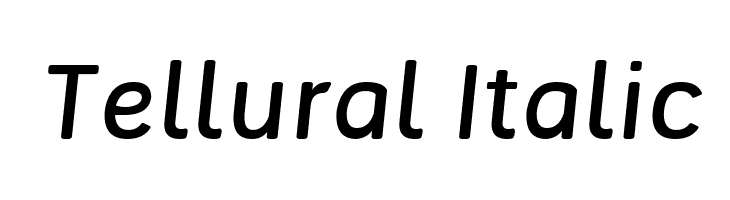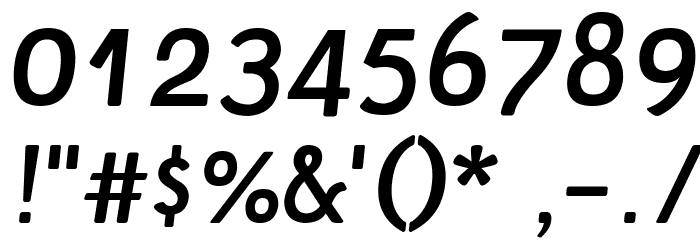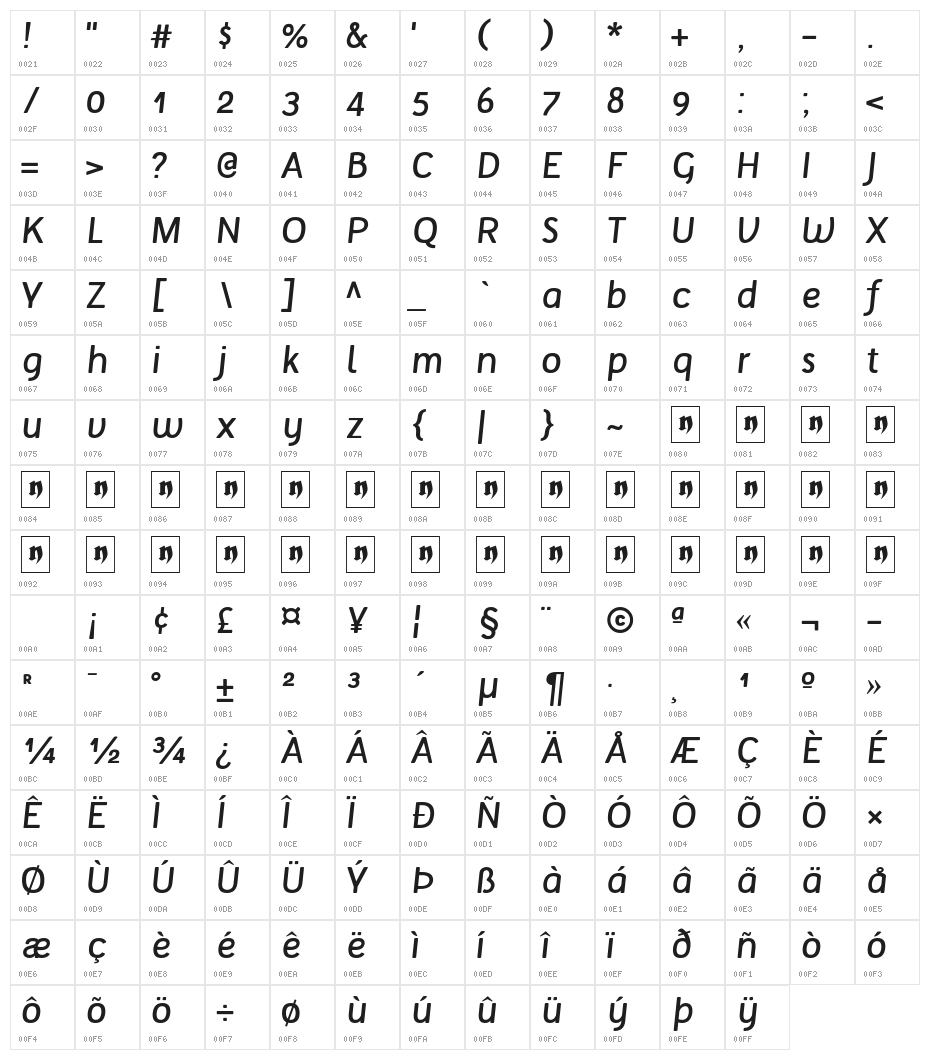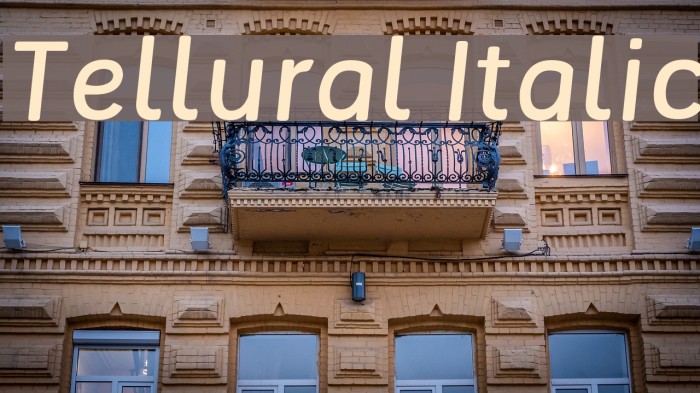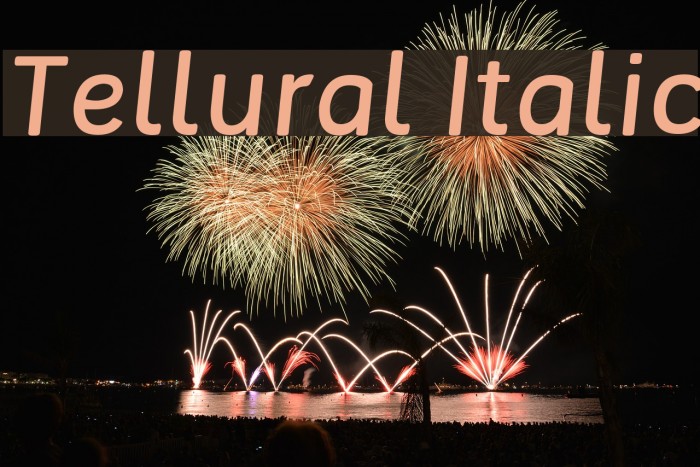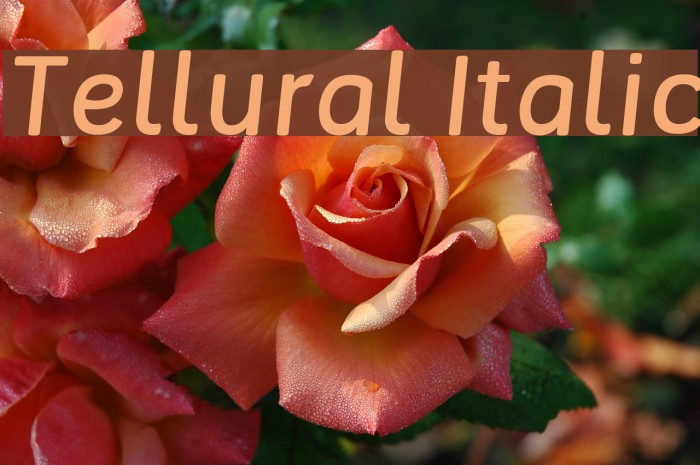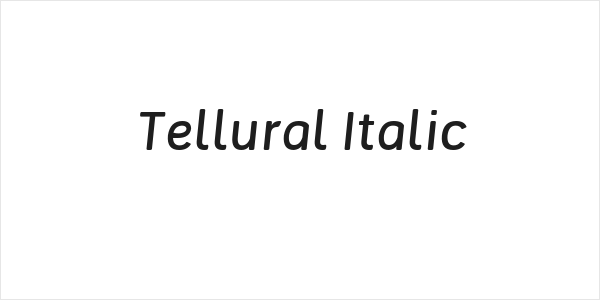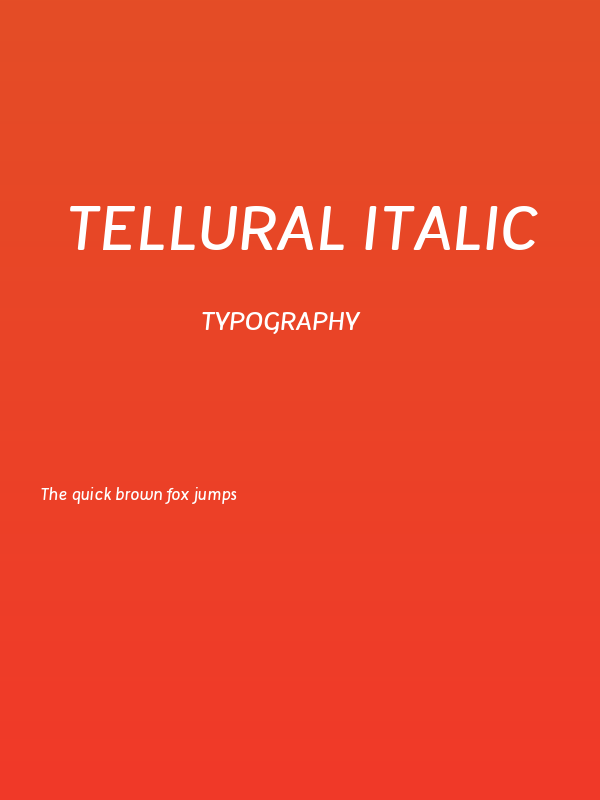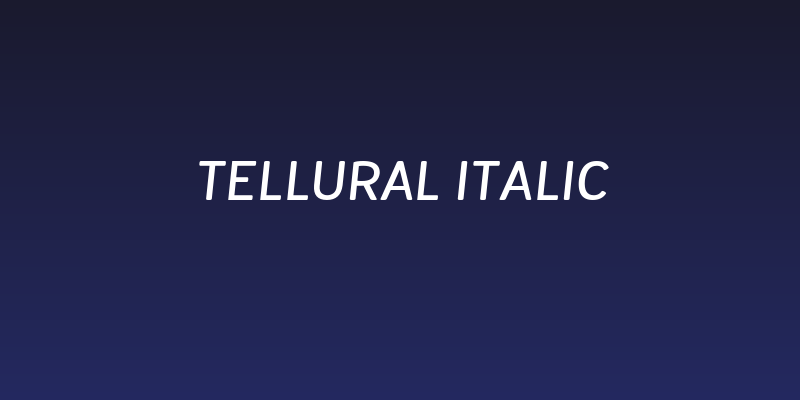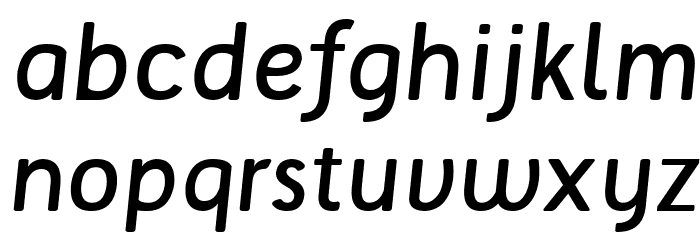
Tellural Italic Font
Tellural Italic Description
This font features a sleek and modern italic style, characterized by its smooth curves and slightly slanted letters. The uppercase letters are bold and assertive, while the lowercase letters maintain a consistent flow, enhancing readability. Numbers are clear and distinct, with a slight tilt that matches the overall italic theme. Special characters are well-defined, adding versatility for various uses. The font's design is both contemporary and functional, making it suitable for a wide range of applications.
Use CaseHeadlines, Body text, Logos
Proposed ProjectsIdeal for branding, advertising, and editorial design projects where a modern and stylish look is desired.